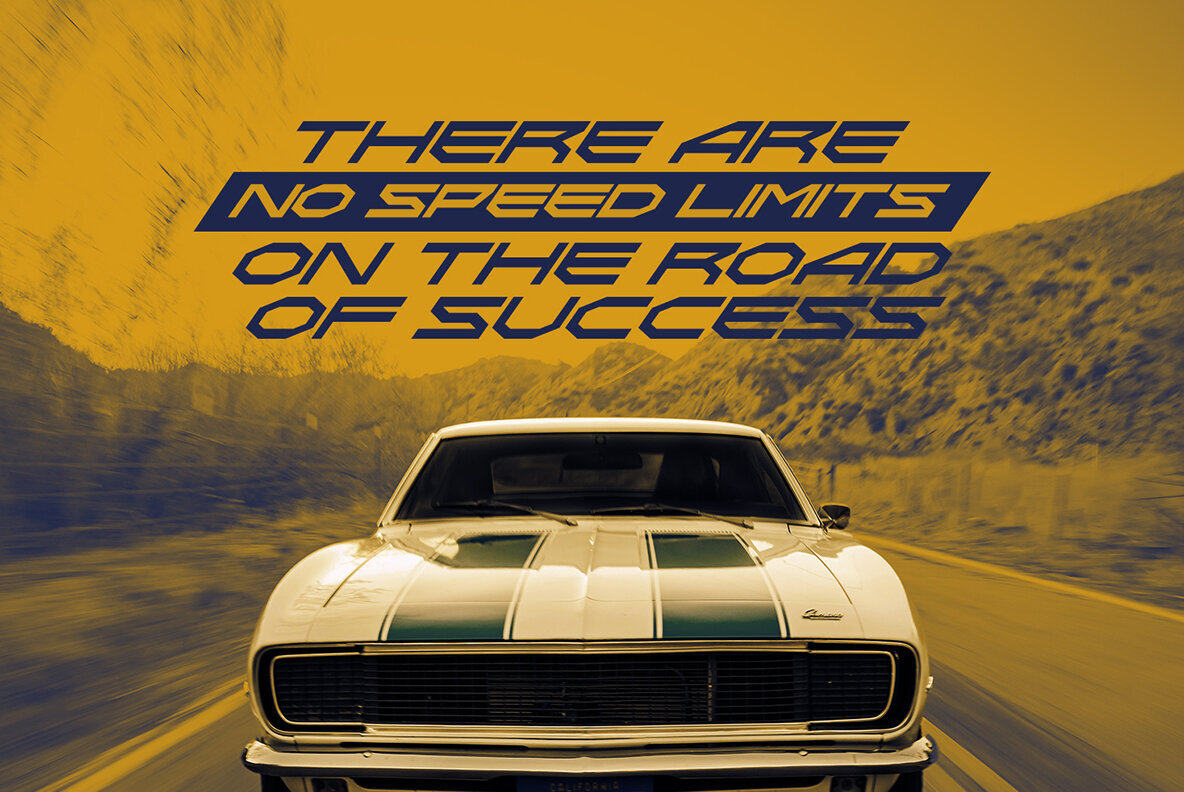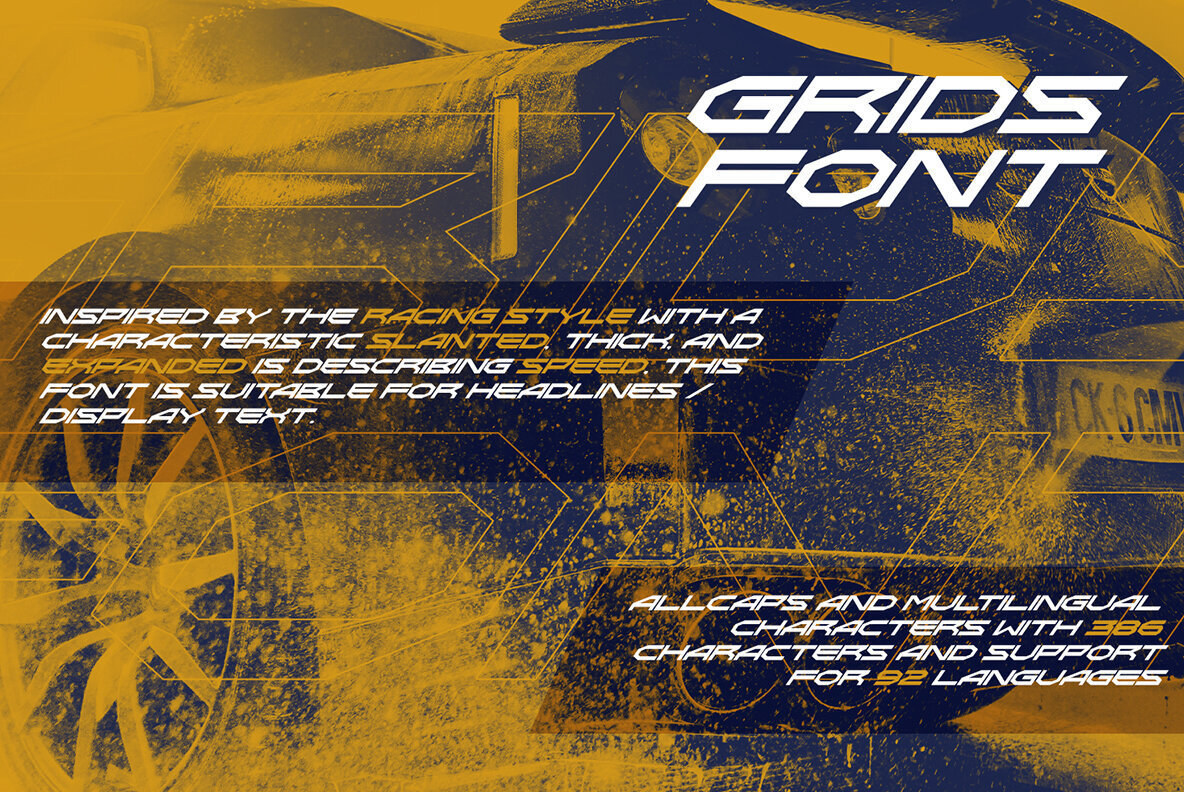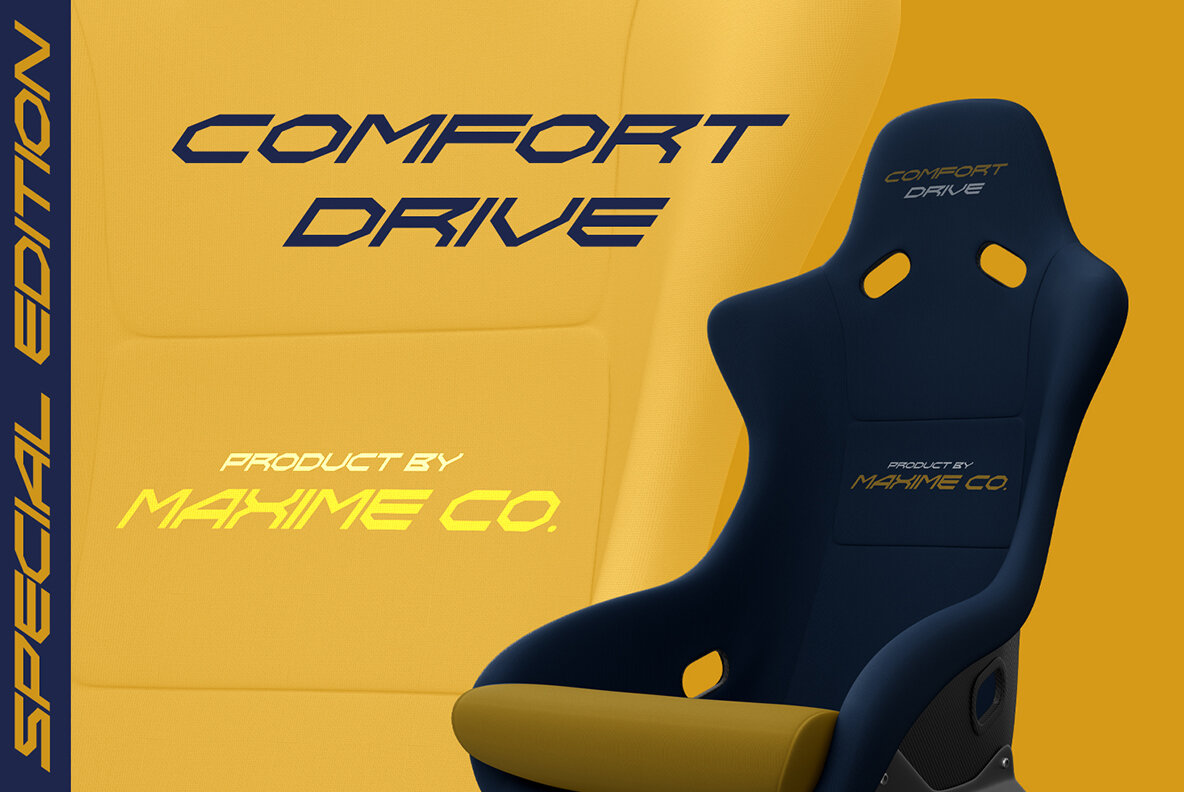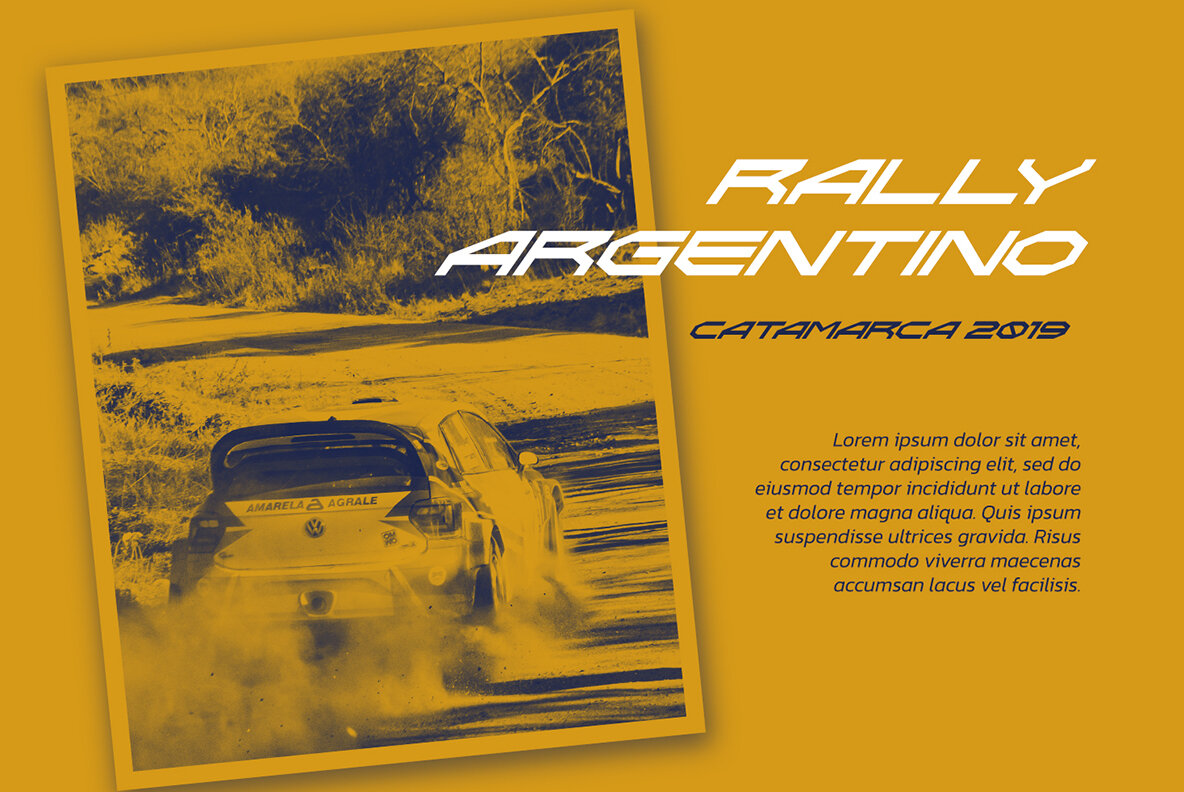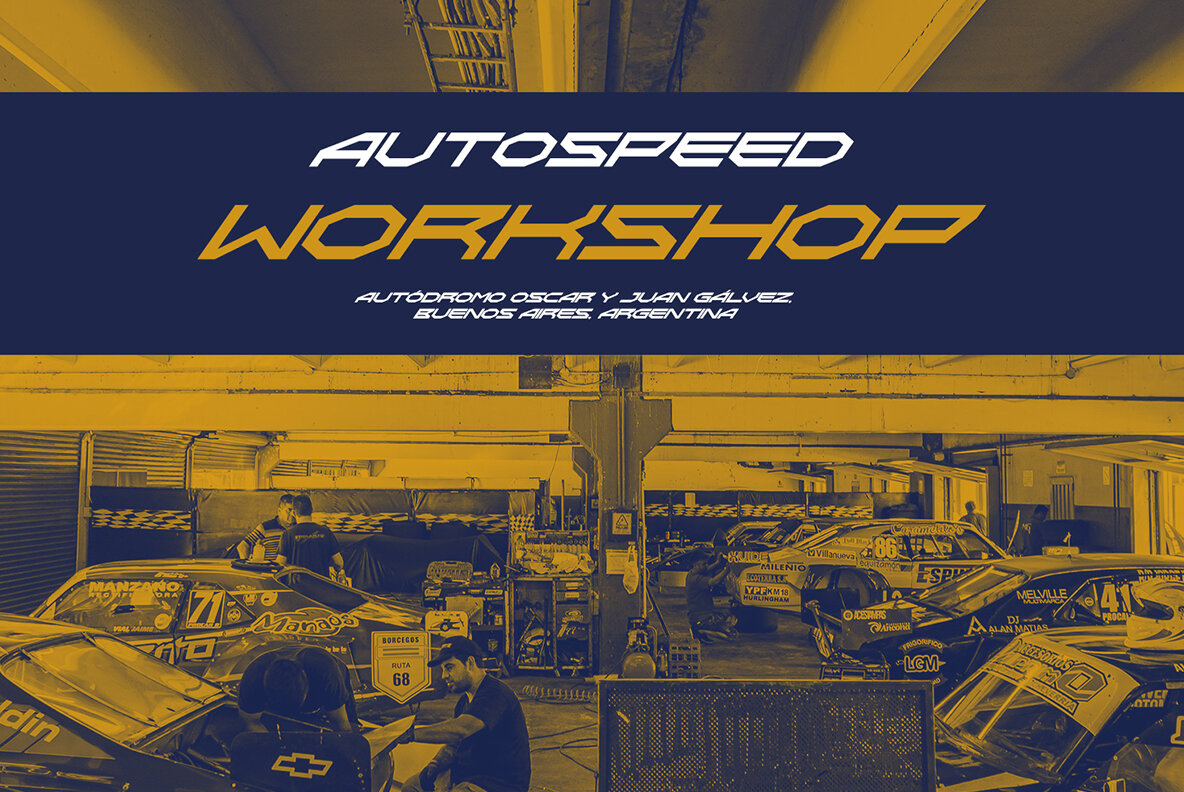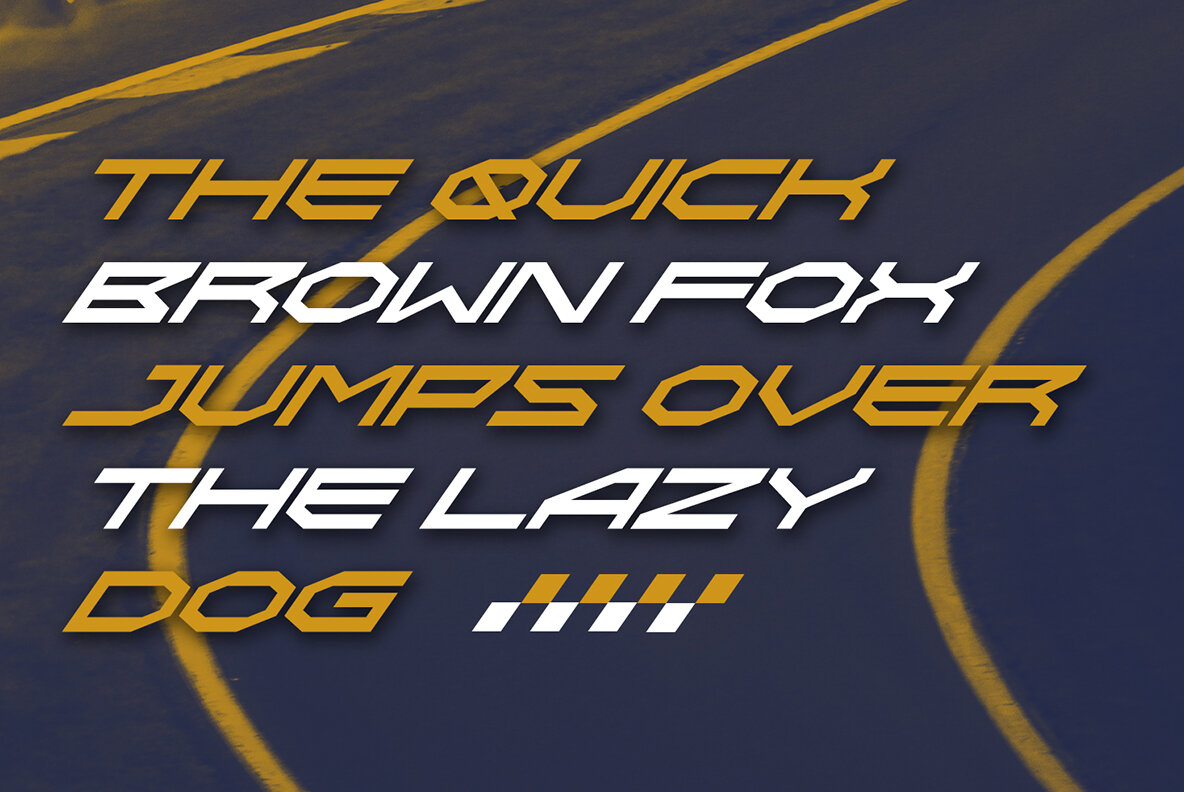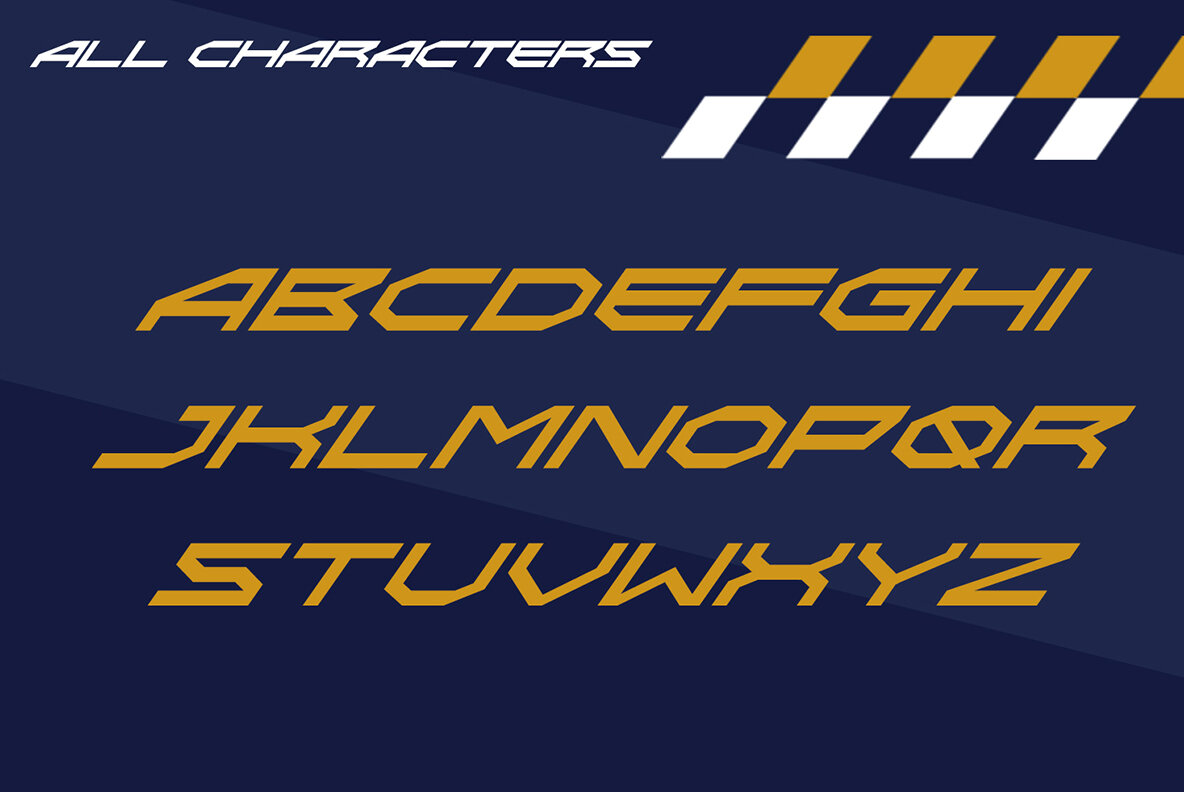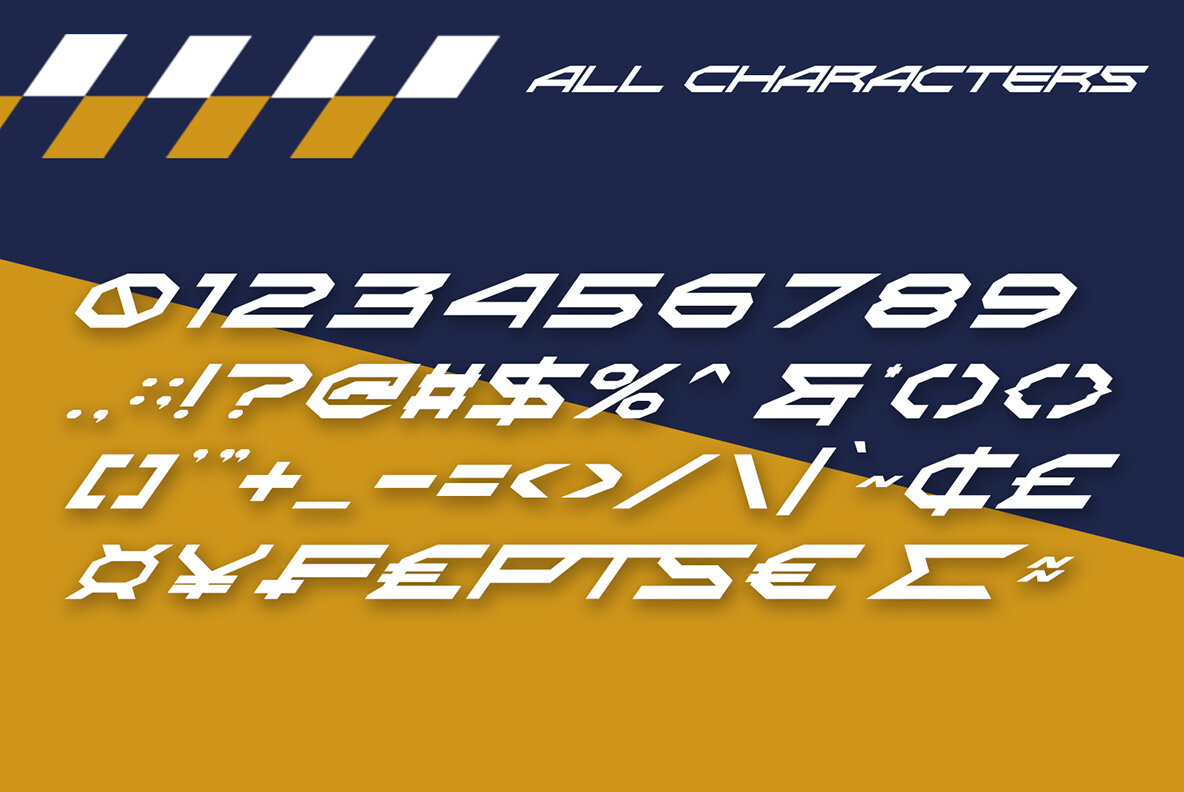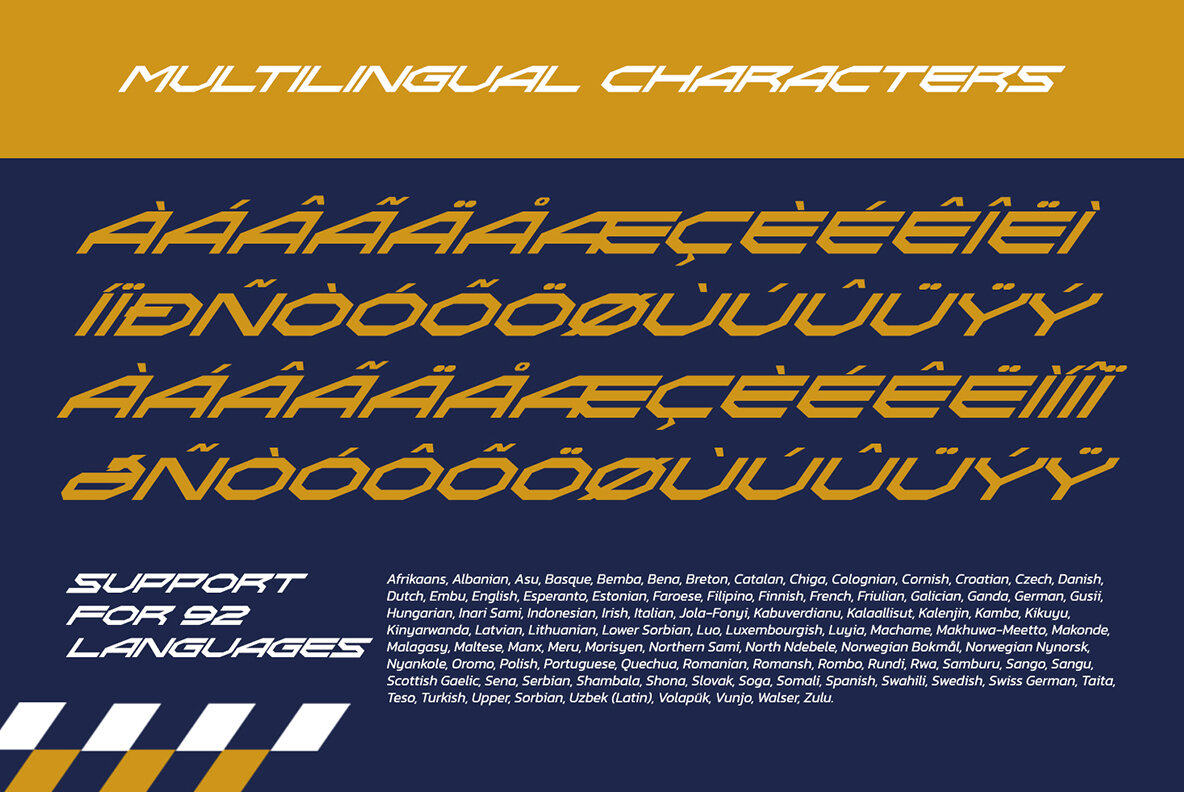
Grids Font
Grids Regular
Grids captures the thrill of high-speed design with its racing-inspired aesthetics. Sharp angles and firm displays define each letter, delivering a distinctive and bold visual impact. This font is a perfect choice for designers aiming to infuse their projects with a unique edge. Grids works seamlessly across various creative contexts including posters, banners, and logos. It is equally effective for book covers, headings, printed materials, and merchandise—adding a dynamic flair to social media graphics. Consider examining the font preview to spark new ideas for its application.Grids: A Bold Display Font with Racing Flair